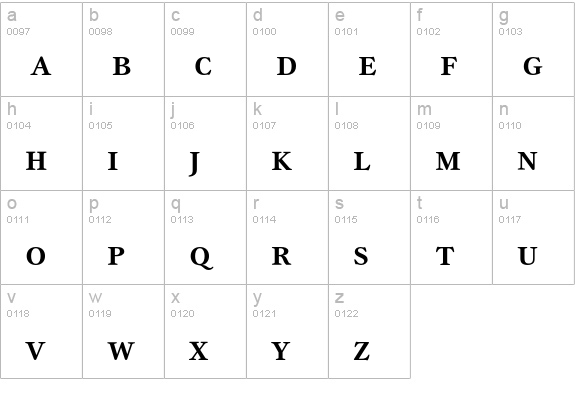
GammaSCEF-Medium Font Details
GammaSCEF-Medium is a balanced, medium-weight variant in the GammaSCEF typeface family \xE2\x80\x94 well suited to sub-headlines, navigation, and balanced editorial work.
GammaSCEF-Medium font is a stunning and versatile typeface that brings a touch of modern elegance to any design project. With its clean lines and well-balanced proportions, this font is perfect for both display and body text. The GammaSCEF-Medium font offers a wide range of characters, including uppercase and lowercase letters, numerals, punctuation marks, and special symbols. Its medium weight strikes the perfect balance between readability and visual impact, making it suitable for a variety of applications. Whether you're designing a logo, creating a website, or designing a printed piece, GammaSCEF-Medium font will add a touch of sophistication to your project. Its timeless design ensures that it will remain relevant and stylish for years to come. And the best part? GammaSCEF-Medium font is available for free download at FontsMarket.com. You can easily access this font and start using it in your designs without any cost. It's a fantastic opportunity to enhance your creativity without breaking the bank. So why wait? Give your designs a professional and polished look with GammaSCEF-Medium font. Download it for free today at FontsMarket.com and start creating stunning designs that leave a lasting impression.